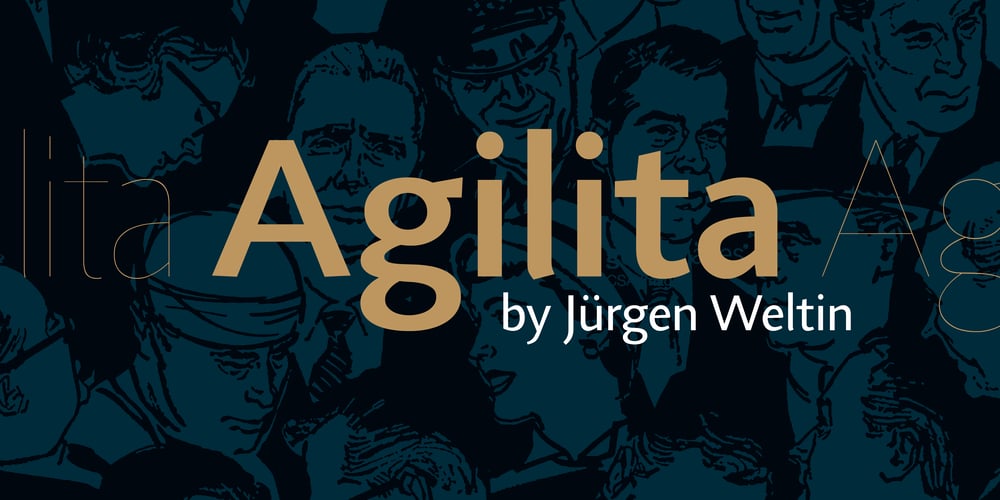
Agilita Font Family was designed by Jürgen Weltin and published by Linotype. Agilita contains 33 styles and family package options. Created by German designer Jürgen Weltin, Linotype’s Agilita is a contemporary humanist sans serif family with a wide variety of weights, including both ultra thin hairline options and heavier, dark type. Agilita has rather classical proportions; its clear ascenders and descenders lend more distinct word shapes. Weltin’s design has a dynamic, yet strong and very functional appearance with a fine but clear emphasis on the horizontals. This traditional approach makes it a versatile typeface for large-scale text setting, but it can also be used in complex information design projects, and orientation systems, for example. Hence it was developed carefully into a wide range type family system consisting of 32 styles. This even covers the requirements for display and headline setting. Corresponding condensed weights are suitable where horizontal space is scarce, as in narrow columns and tables, for example. The Agilta Hairline and Agilta Ultra Thin styles were especially made for display use. These fonts should be set at a minimum size of 20 pt for printed project, and about 40 pt on output to laser printers, depending on the paper used. Agilita’s character sets include special symbols and signs that may be used in dictionaries; like arrows for lemmata and signs for cross references, idioms or colloquial language. There are two sets of arrows available in each weight for use in orientation systems. Each font in the Agilta family is built according to Linotype’s Extended European character set guidelines. These offer support for more than 48 Latin-based languages used in Western, Central, and Eastern Europe, including Baltics and Turkey.